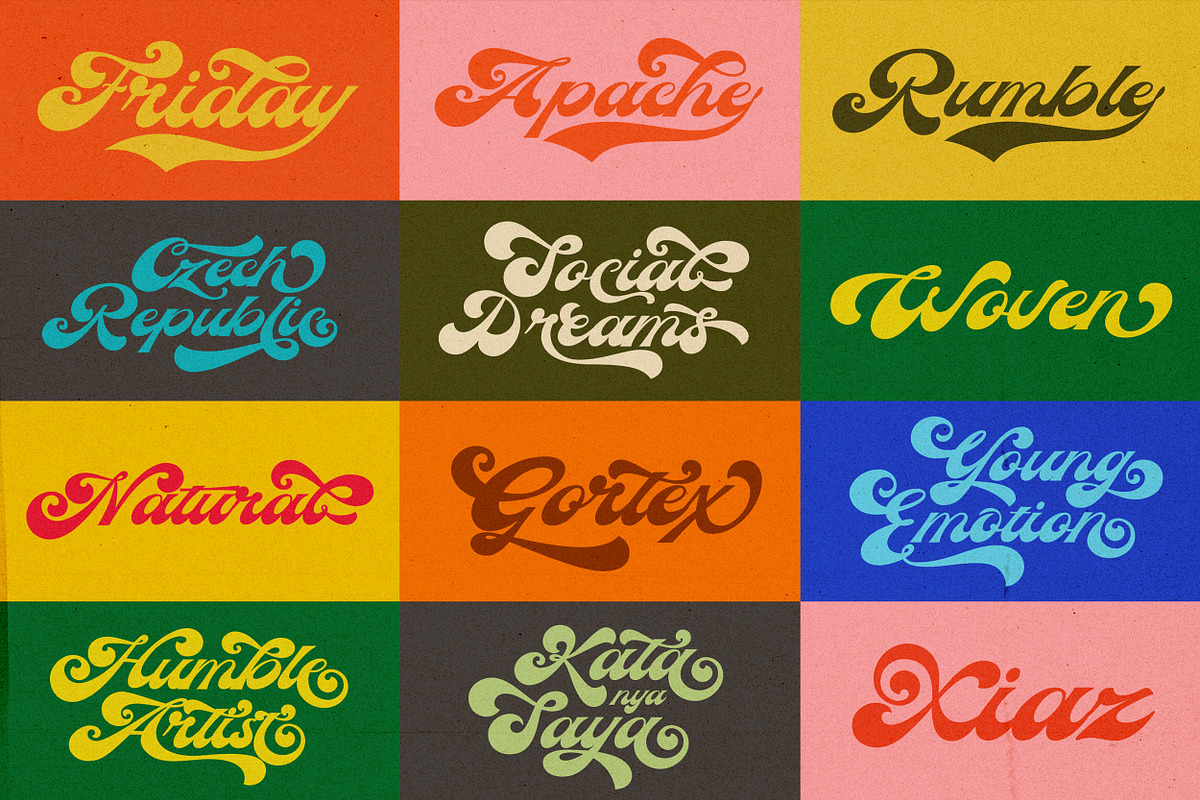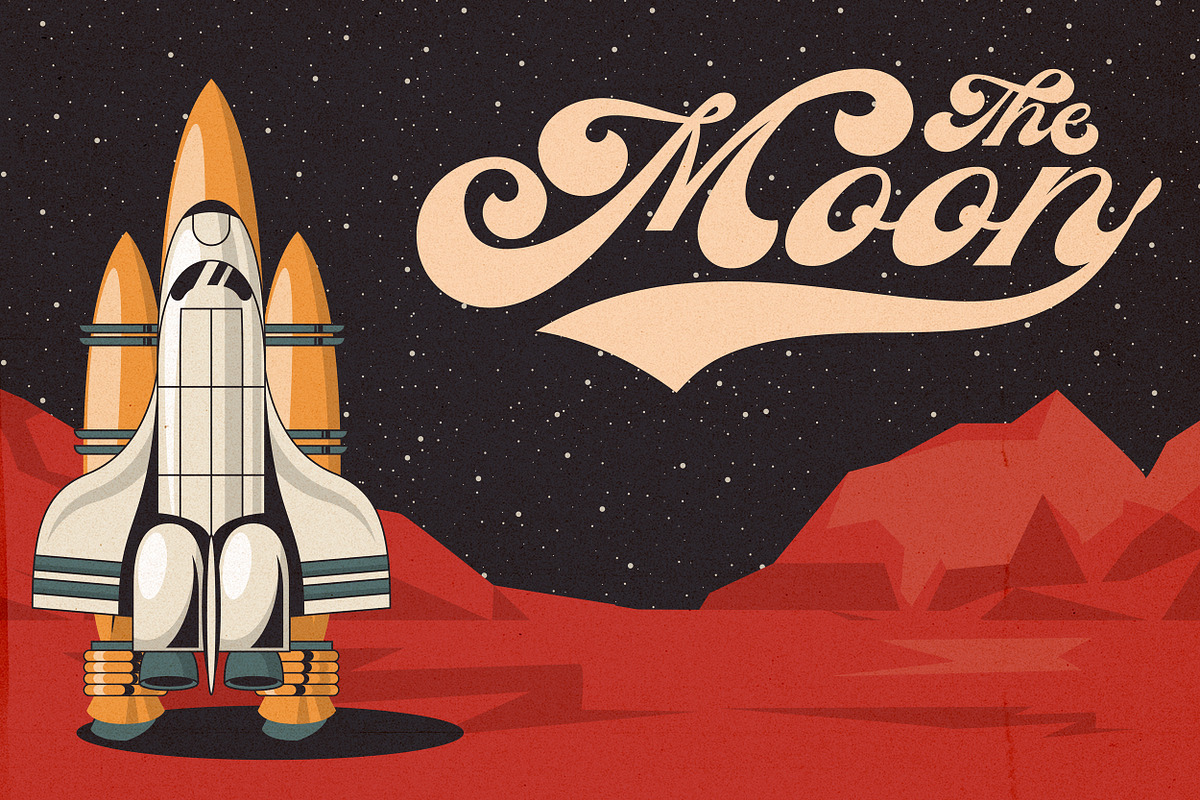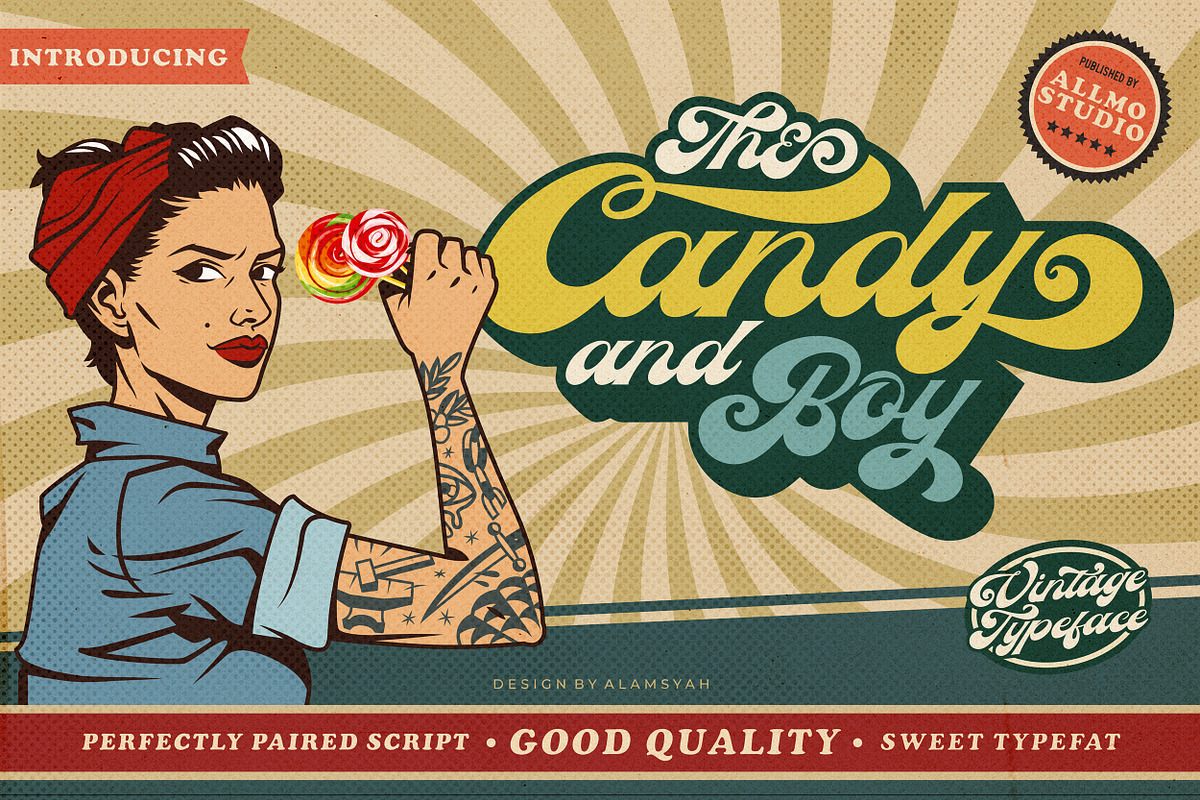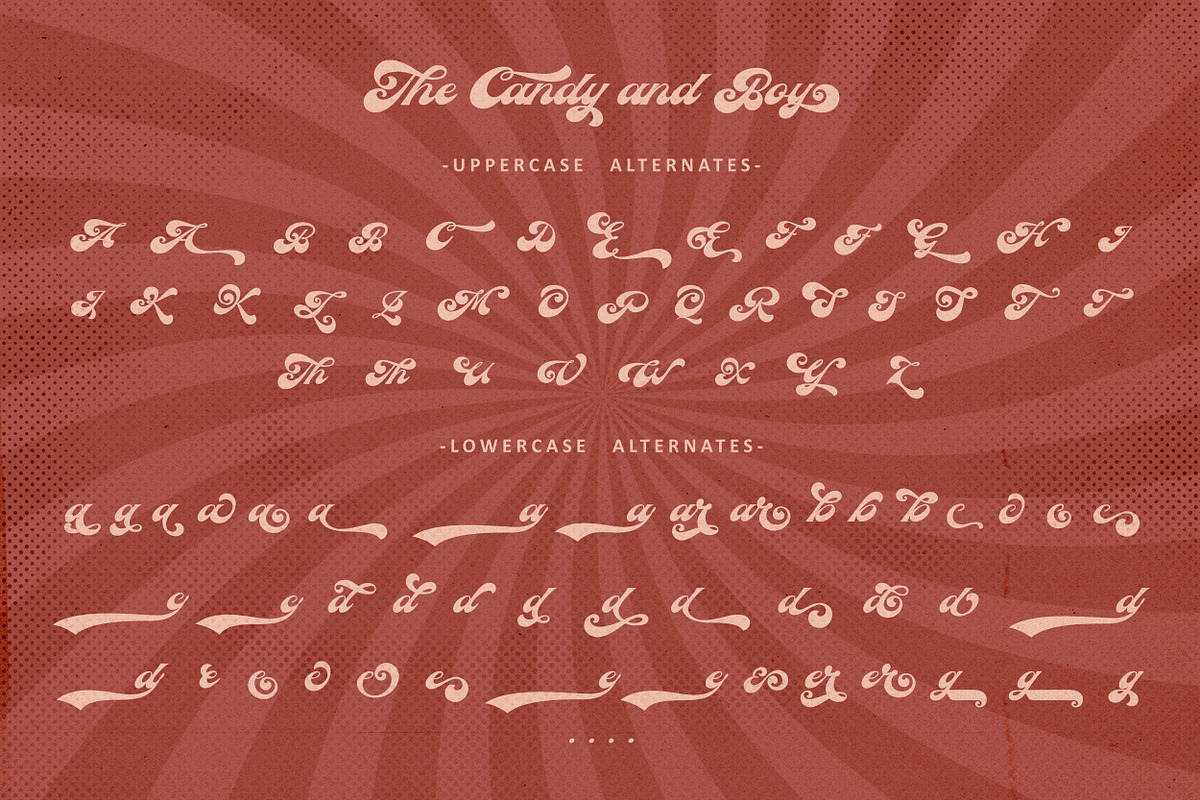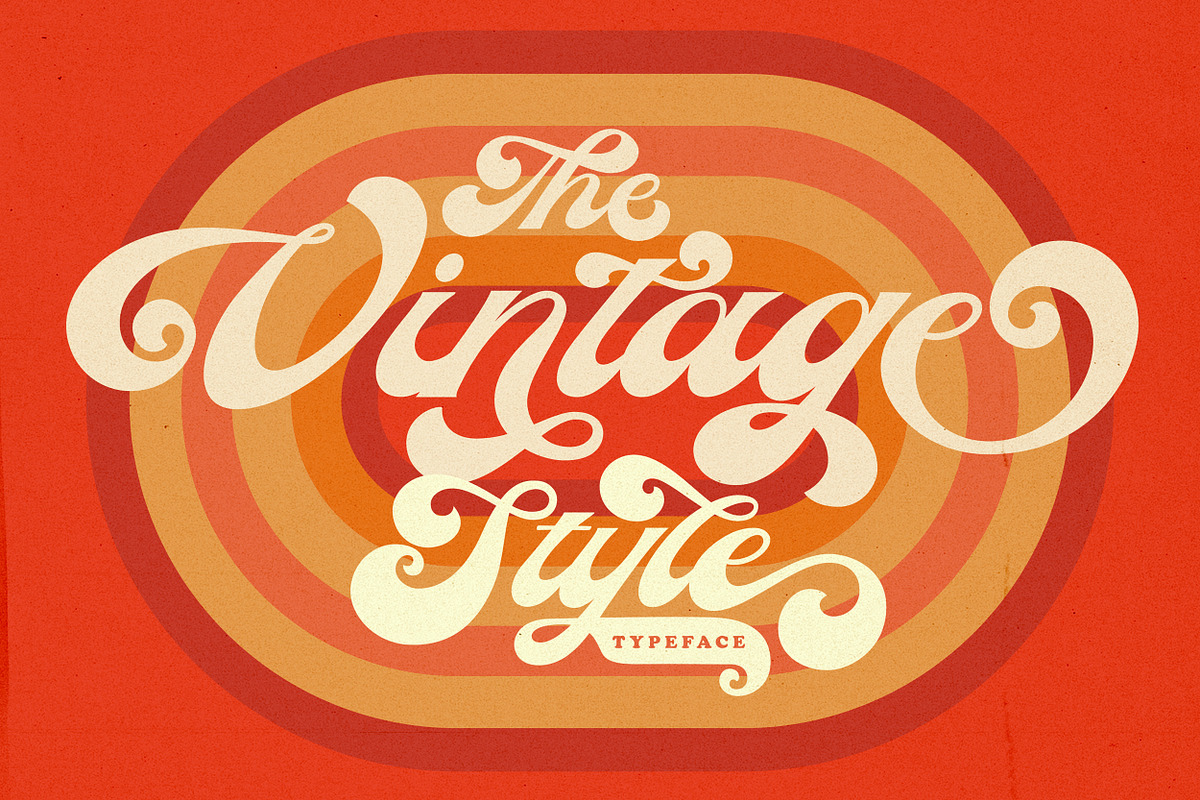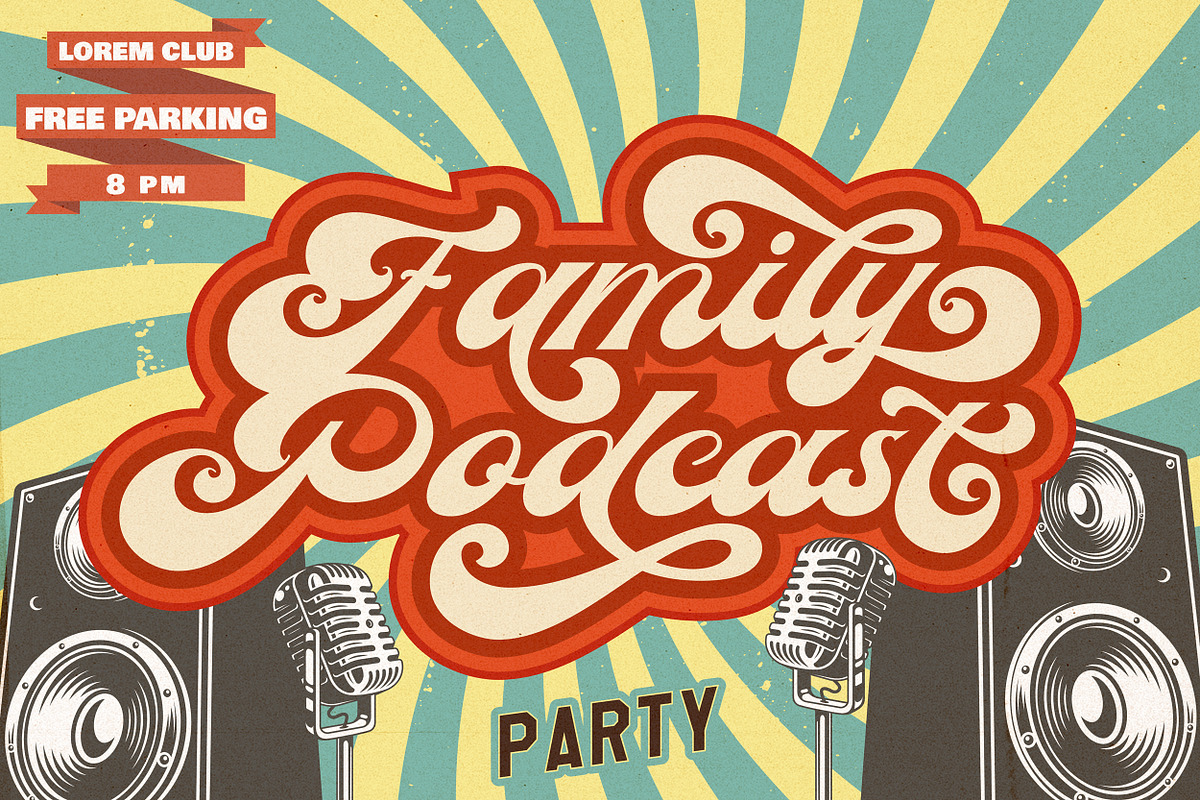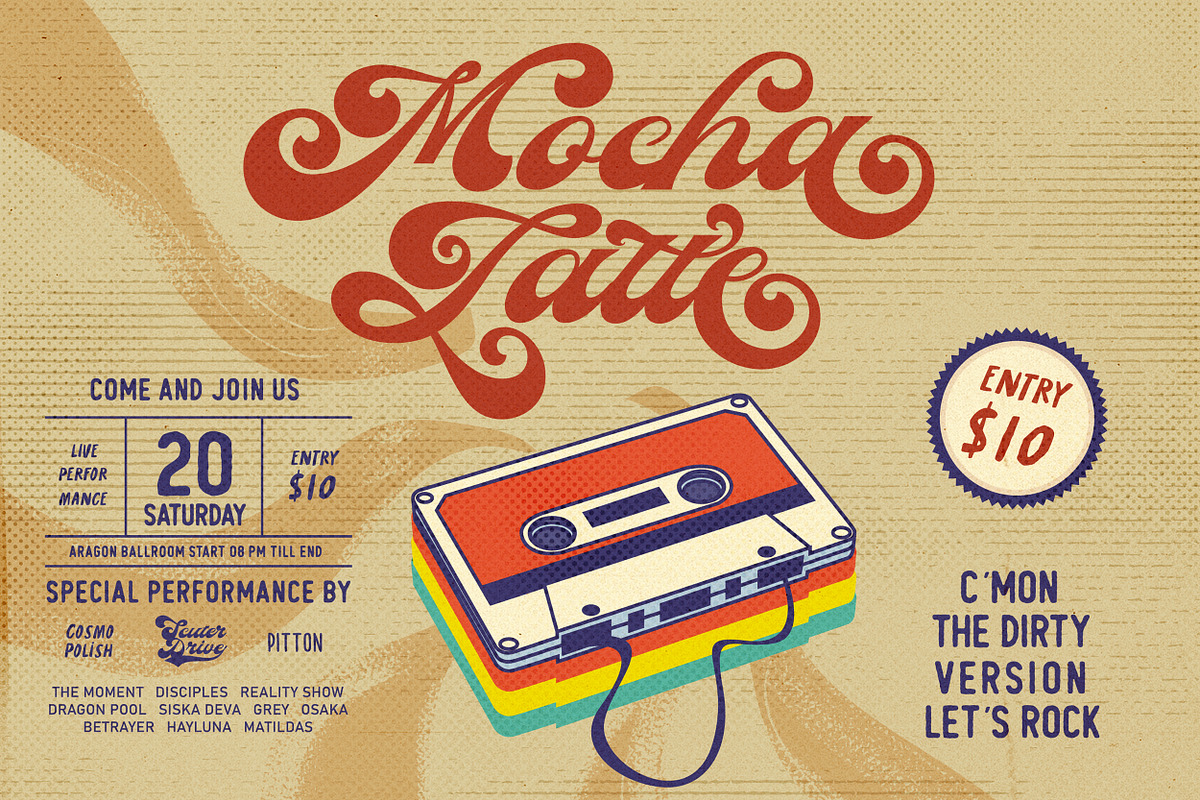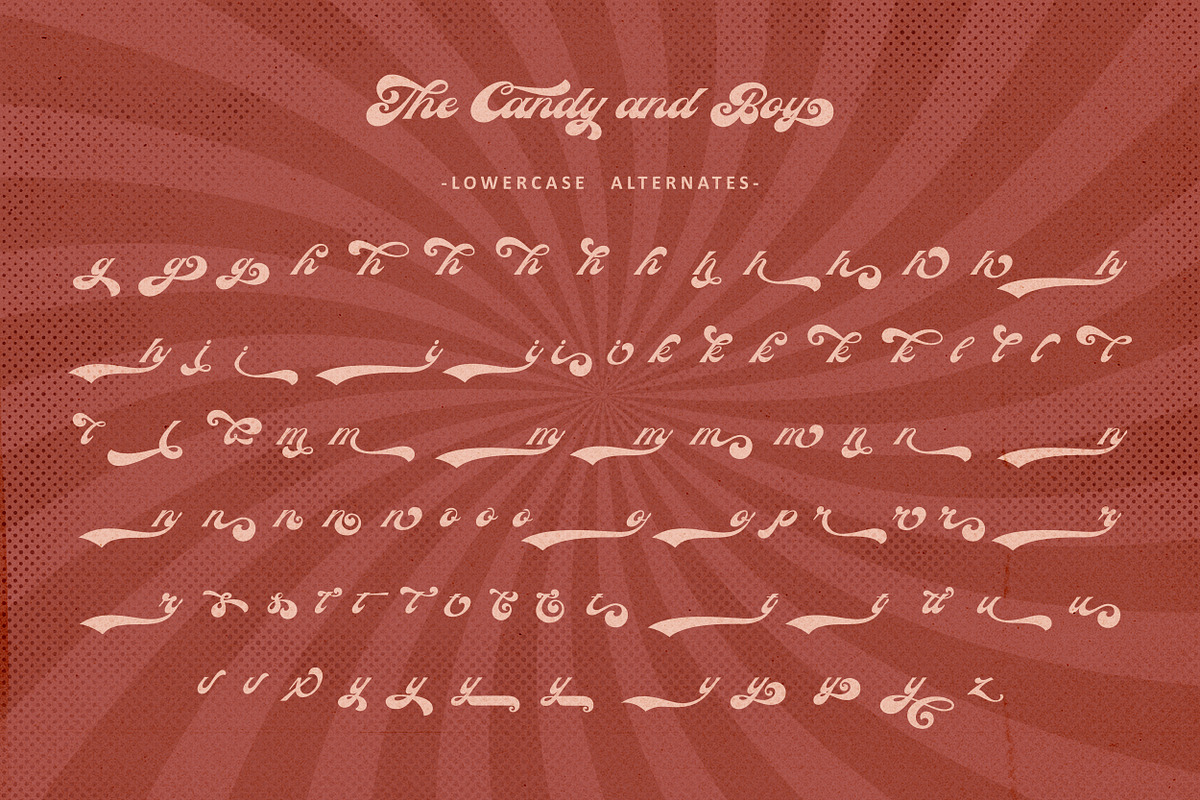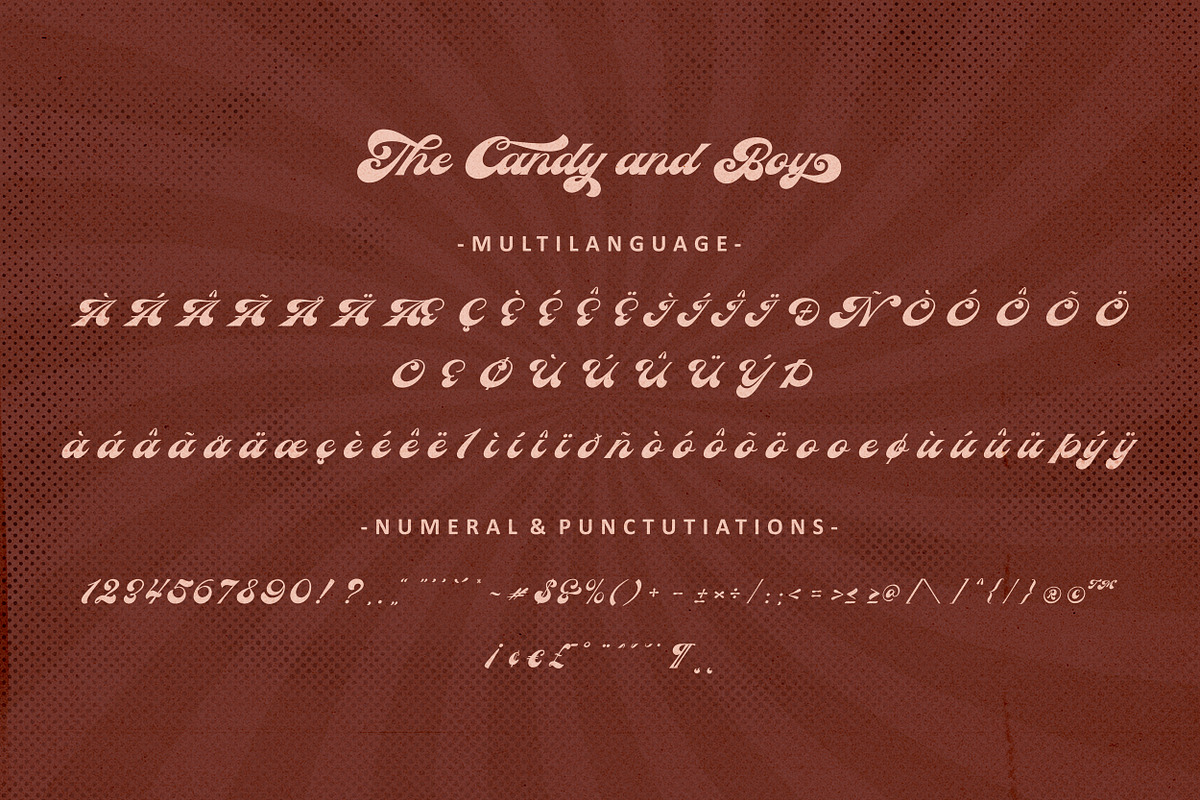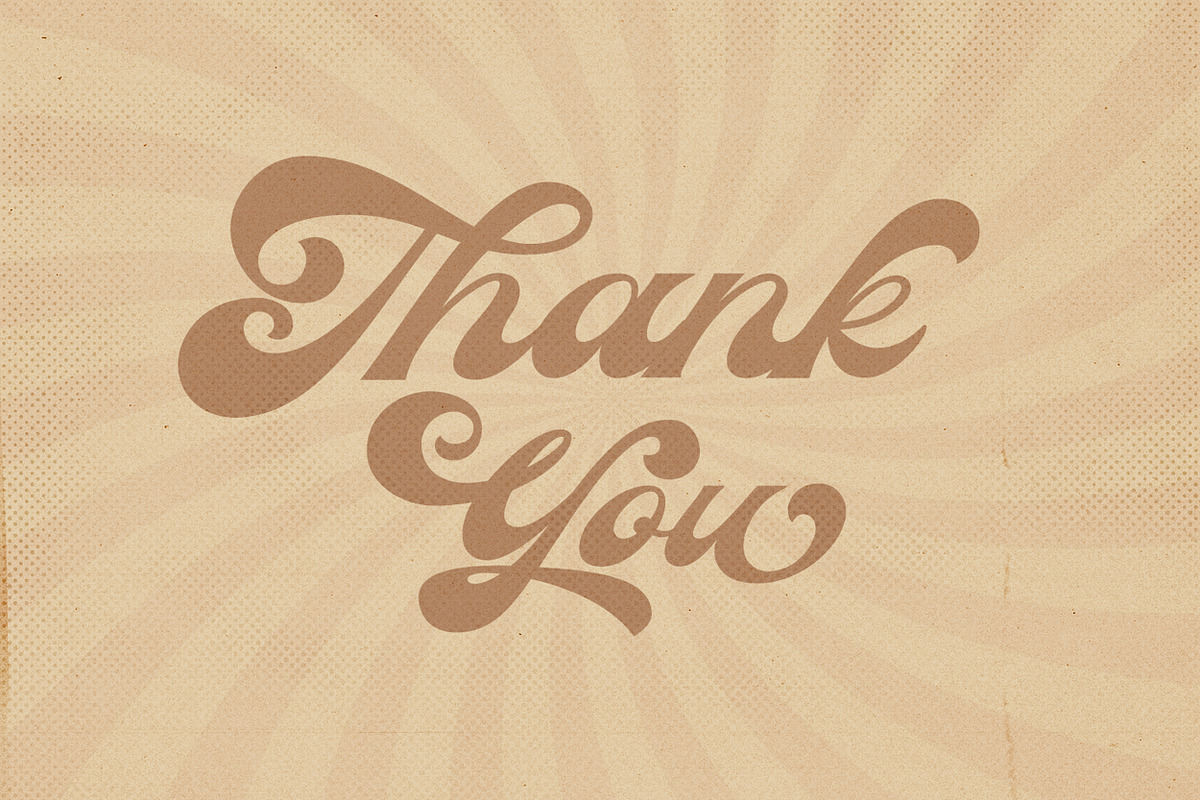
The Candy And Boy
Please welcome, The Candy and Boy come with retro bold script which will bring you back to 60s feel. The Candy and Boy font for you to get back to those magnificent era for the sake of old retro and vintage stuff. Perfectly fit for your logo, headings, branding, magazine, cover album, book cover, movie, apparel design, quotes, invitations, flyer, poster, greeting cards, product packaging, printed quotes, etc
uppercase & lowercase numbers and punctuation multilingual ligatures alternates swashes PUA encoded